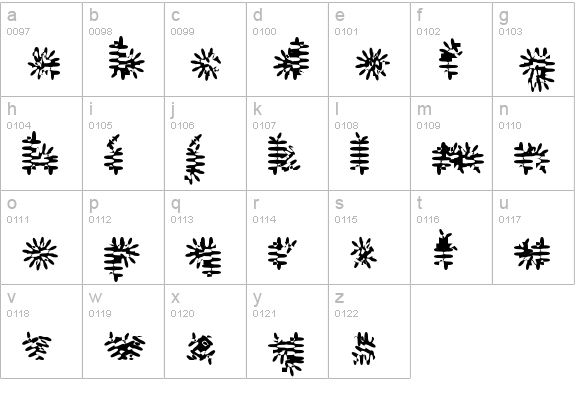
Gilgongo Pap is a whimsical and playful font that is sure to add a touch of creativity to any project. With its unique and quirky style, this font is perfect for adding a fun and lighthearted feel to your designs. Whether you're working on a children's book, a party invitation, or a social media graphic, Gilgongo Pap is sure to make your text stand out. What's even better is that Gilgongo Pap is free to download at FontsMarket.com! This means you can easily access this charming font and start using it in your projects right away. So don't wait, add Gilgongo Pap to your font collection today and let your creativity soar.